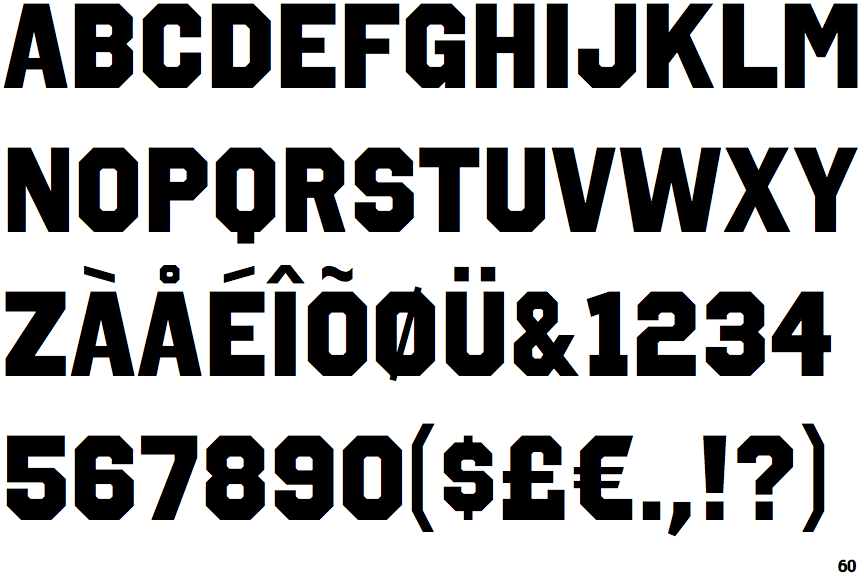
Octin College Bold Font
Octin College Bold Font. Check out the rest of the octin families: Octin college is a tough headliner in 7 weights:
Octin college is a tough headliner available in 7 weights: Check out the rest of the octin families: It’s also great for prison, sports, construction, police or military themes.
Octin College Bold Is The Perfect Font For All Your Fun Designs.
Octin sports, octin prison, octin stencil, octin vintage & octin spraypaint. Octin college isn’t just for school; Octin college isn’t just for school;
Be aware that the octin college regular bold font is free for personal knowledge and use only. Octin font pairings about description octin is a tough octagonal headliner tailor made for sports, school, police, construction or military themes. Octin college isn’t just for school;